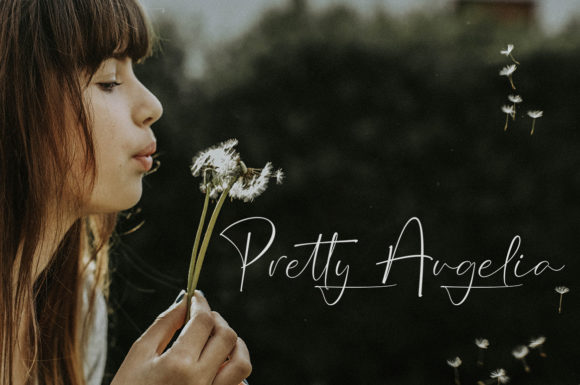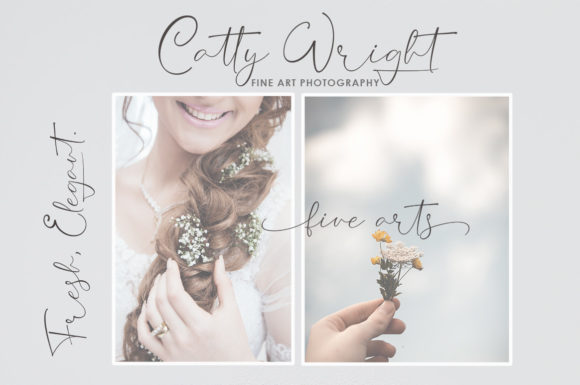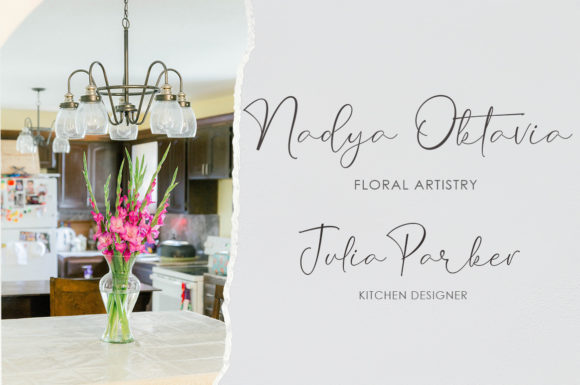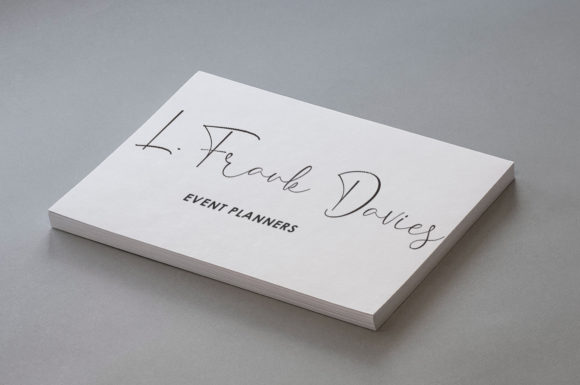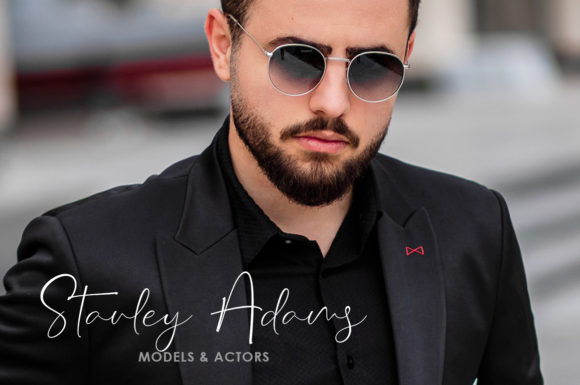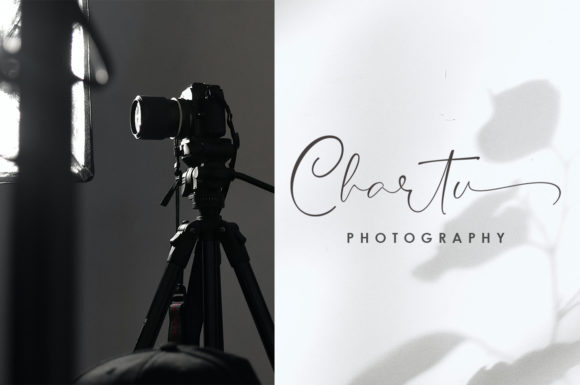
Introduction to Ringthore Font
Have you ever been in the midst of a creative project, searching for the perfect font to give it that extra oomph? For designers, finding the right design resource can be the difference between a good project and a great one. I recall a particularly challenging project where I was tasked with creating a beautiful invitation for a wedding. After hours of browsing through fonts, I stumbled upon the Ringthore Font – and it was love at first sight.
This elegant script font is a game-changer for any design project that requires a touch of sophistication. With its thin lettered and delicate design, the Ringthore Font is perfect for logos, invitations, stationery, and even social media posts. Plus, its PUA encoded feature makes it incredibly easy to access all the glyphs and swashes you need to create stunning designs.
Not only is the Ringthore Font a valuable addition to any designer’s toolkit, but it’s also available for free download, making it a high-quality resource that’s accessible to all. Whether you’re working on a personal project or a client’s design, this font is sure to impress with its transparent background and professional look.
Key Features of Ringthore Font
- Unique, handcrafted design elements make it a standout choice for designers
- Perfect for use in graphic design, digital art, and other creative applications
Honest Review: Ringthore Font
I recently stumbled upon the Ringthore Font, and I’m excited to share my thoughts on this design resource. Overall, I found it to be a great addition to my creative project.
- High-quality font with a unique, modern design.
- Limited character set, which may not be suitable for complex text-based projects.
- No bold or italic variations available.
- Some users may find the font’s design too minimalist or simplistic.
Overall, I’m impressed with the Ringthore Font’s quality and versatility. While it may have some limitations, it’s a great choice for designers looking for a modern, high-quality font for their creative projects. With a free download option, it’s definitely worth checking out.
To get the most out of the Ringthore Font, use it in combination with a transparent background to create a clean and modern design. You can also experiment with different font sizes and styles to add visual interest to your project.
The Ringthore Font is perfect for creative projects such as logos, business cards, presentations, and documents. It’s also a great resource for designers who need a high-quality font for their design work.
Alternatives to Ringthore Font
Nova Square Font
Nova Square Font is a modern sans-serif font ideal for creative projects requiring high-quality typography. It features a transparent background, making it suitable for use on various backgrounds. When to use: Nova Square Font is perfect for designing modern websites, mobile applications, or corporate branding materials. Comparison to Ringthore Font: Nova Square Font has a more minimalist and clean design compared to Ringthore Font’s vintage aesthetic.
Montserrat Font is a popular sans-serif font that has gained recognition for its versatility and high-quality design. It’s a great option for designers who need a reliable font for their creative projects. When to use: Montserrat Font is suitable for designing modern websites, logos, or brochures. Comparison to Ringthore Font: Montserrat Font has a more geometric design compared to Ringthore Font’s more elegant and classic look.